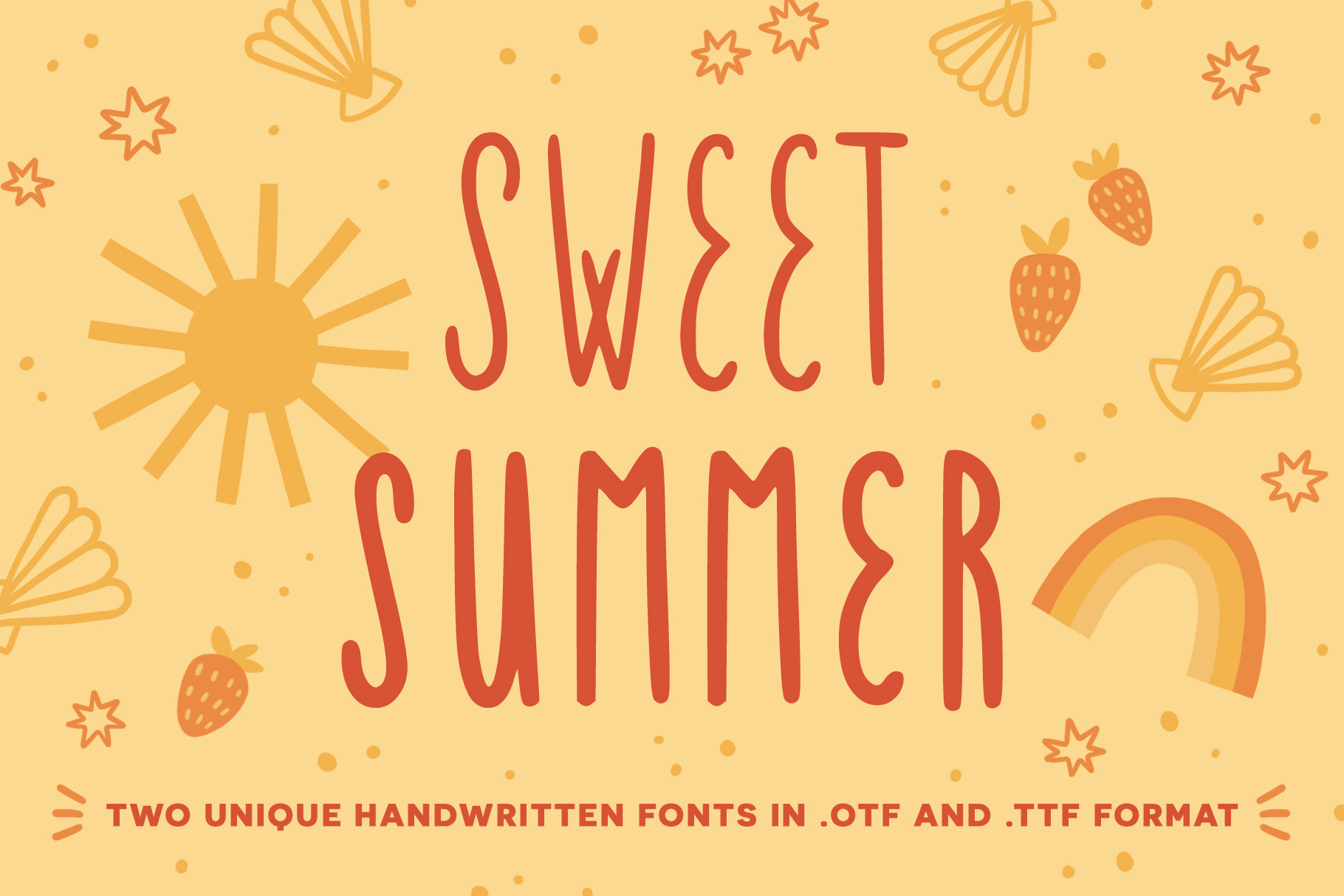
Sweet Summer handwritten fonts
The Sweet Summer fonts (regular and bold) have a fun and quirky handwritten feel with a super condensed style, and can be used for English, French, German, Italian and Spanish (or any other language that uses the same latin characters). Both fonts have a total of 226 characters and glyphs, including accents, punctuation, numbers, etc. They will add a cute and authentic touch to all your designs and products. Enjoy :)